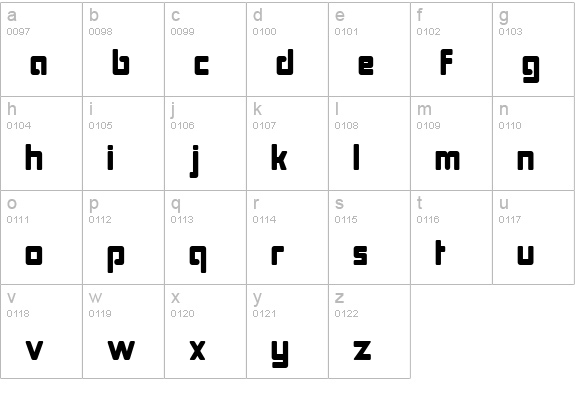
Introducing Bonk font, a playful and whimsical typeface that is sure to add a touch of fun to your designs. With its unique and quirky character, Bonk font is perfect for projects that require a lighthearted and cheerful feel. This font features rounded edges and a bold, eye-catching style that will make your text stand out. Best of all, Bonk font is available for free download at FontsMarket.com. Whether you're working on a poster, invitation, or any other creative project, Bonk font is a great choice for adding a touch of personality and charm. Download it today and add a splash of creativity to your designs!